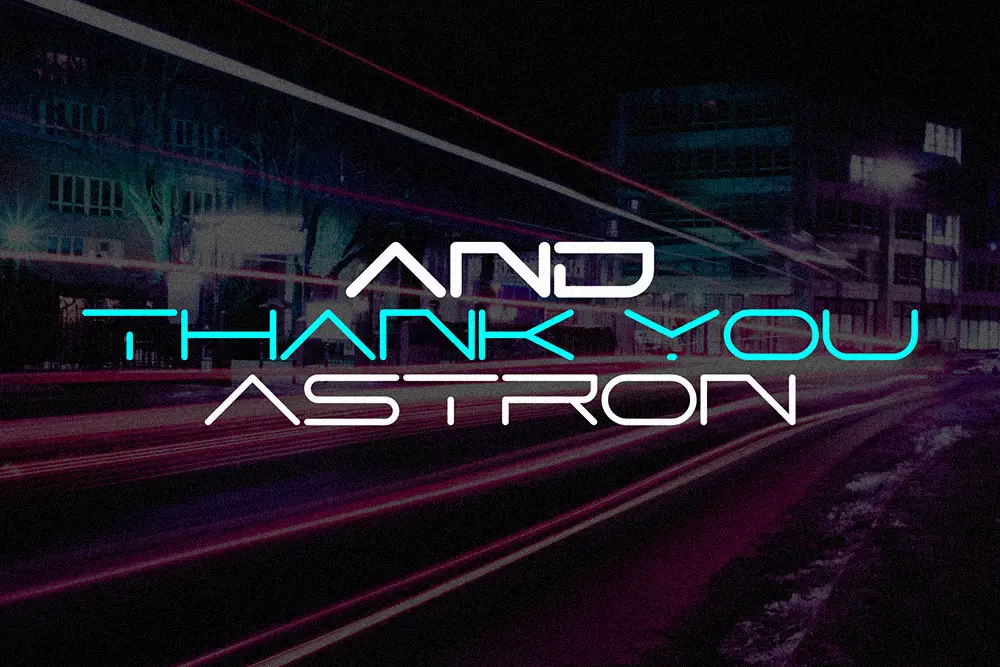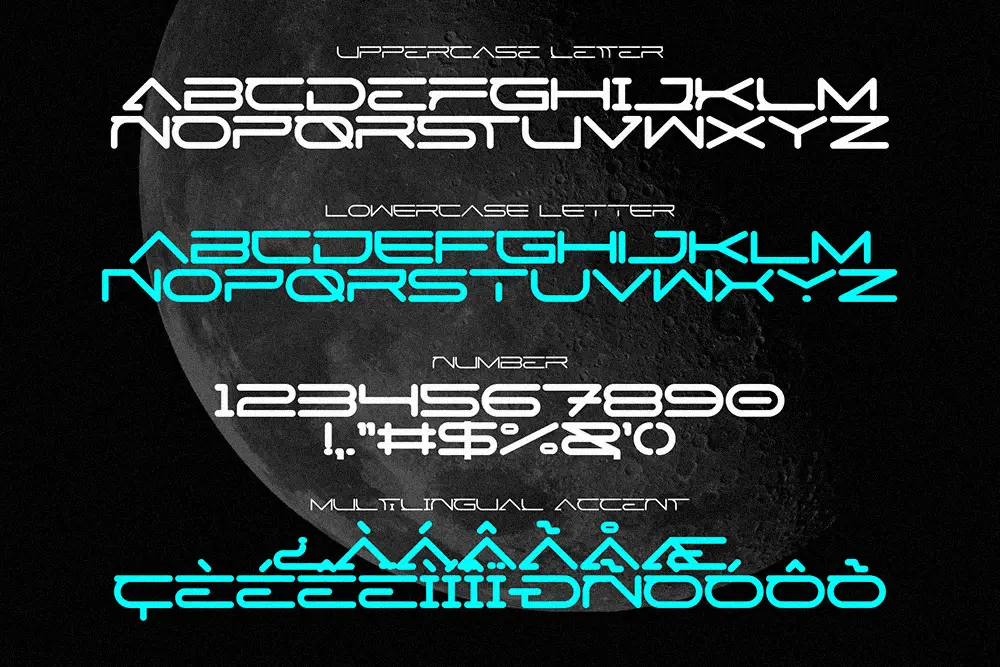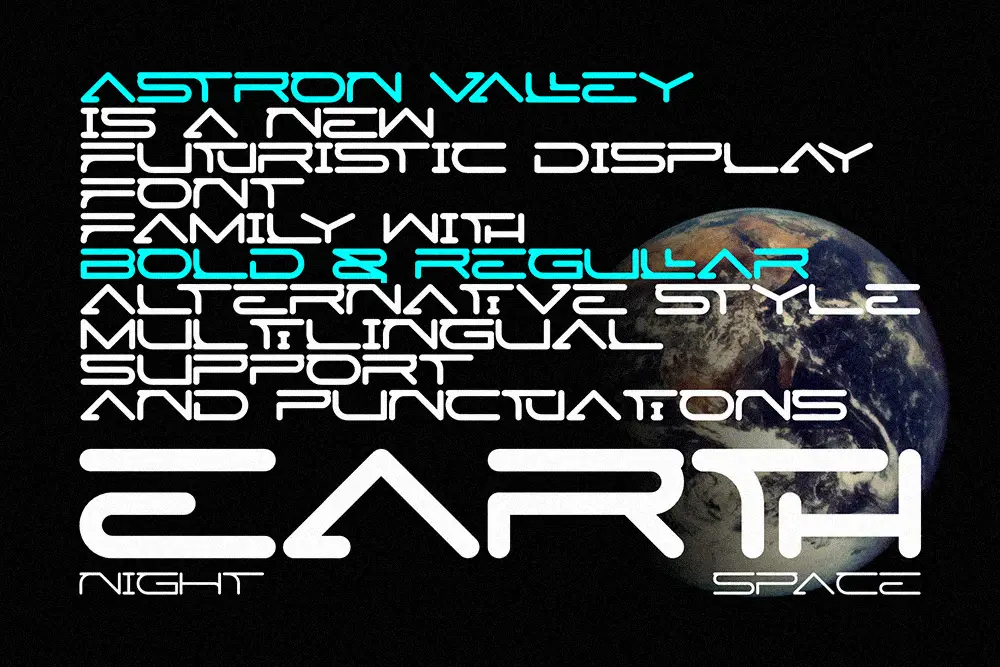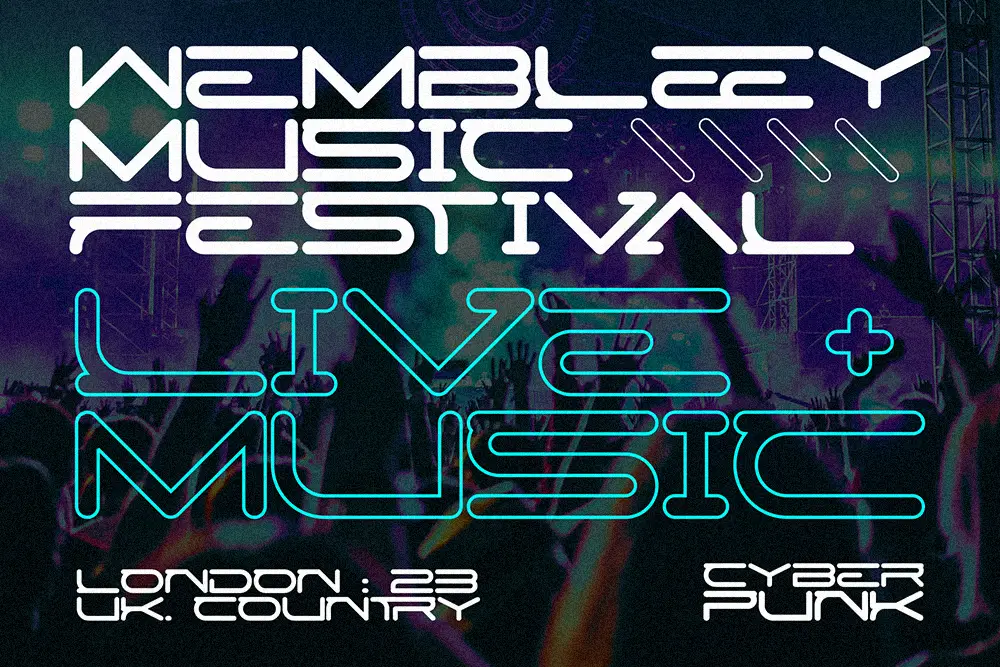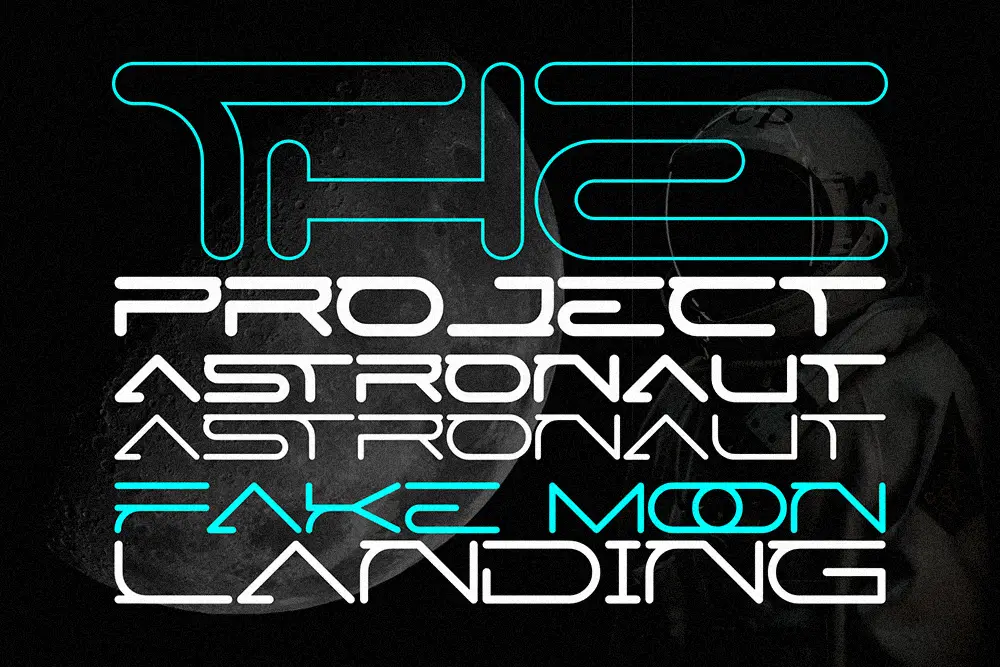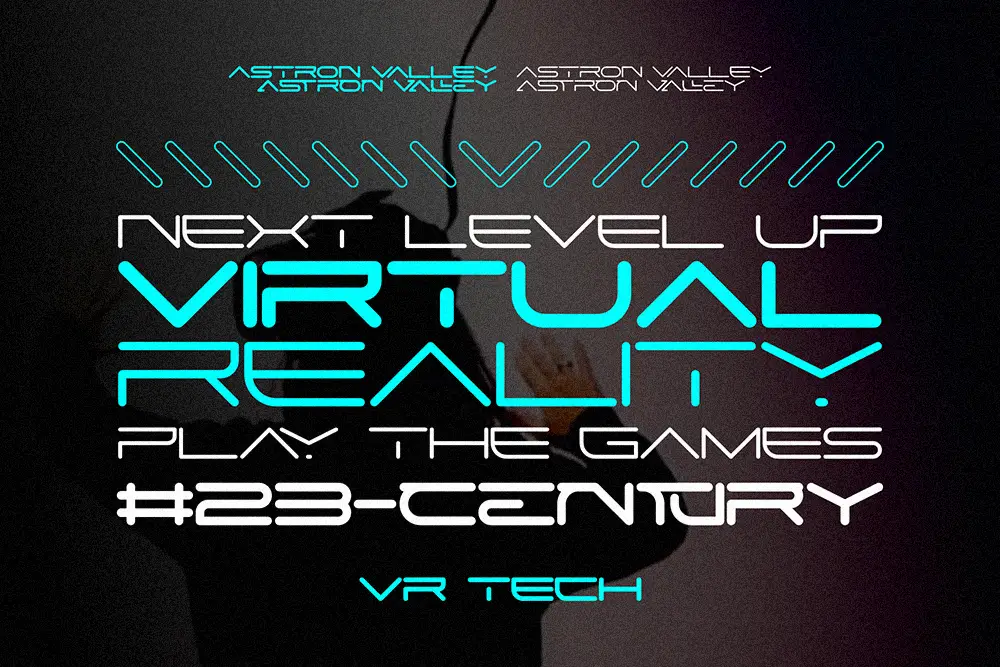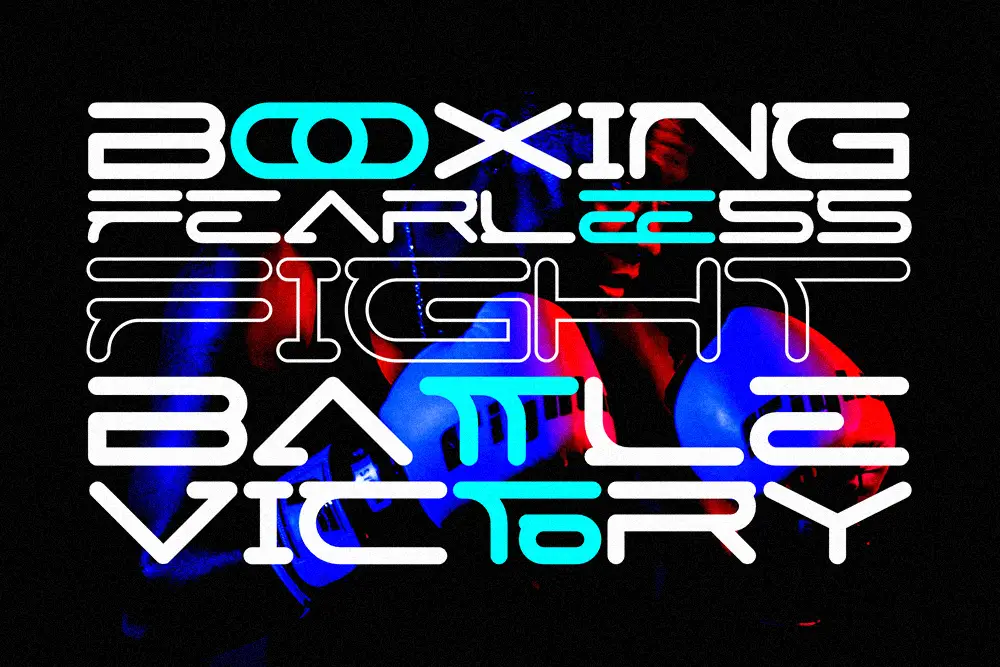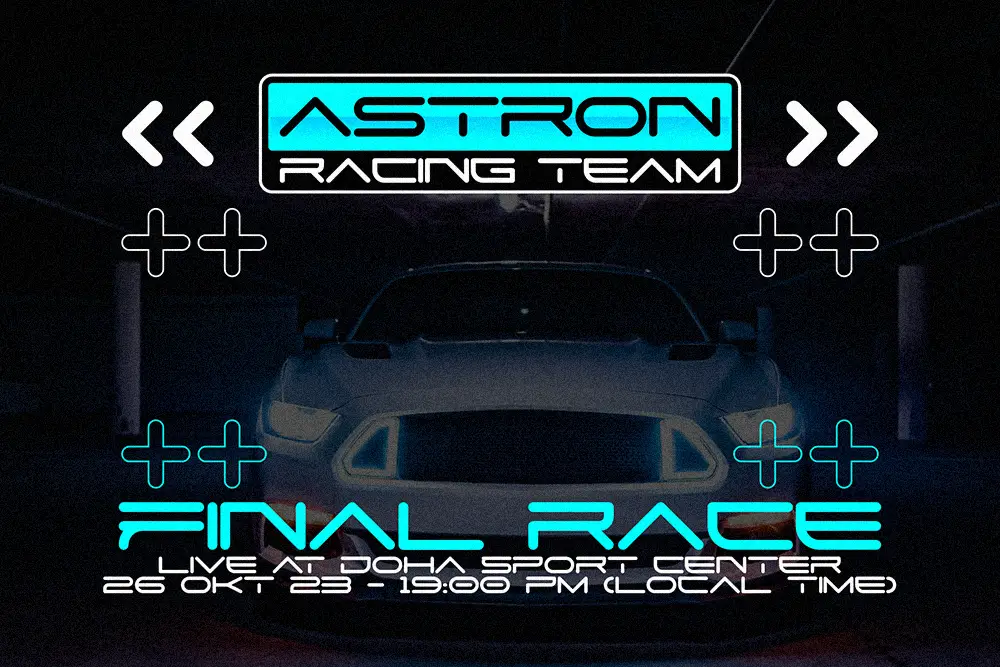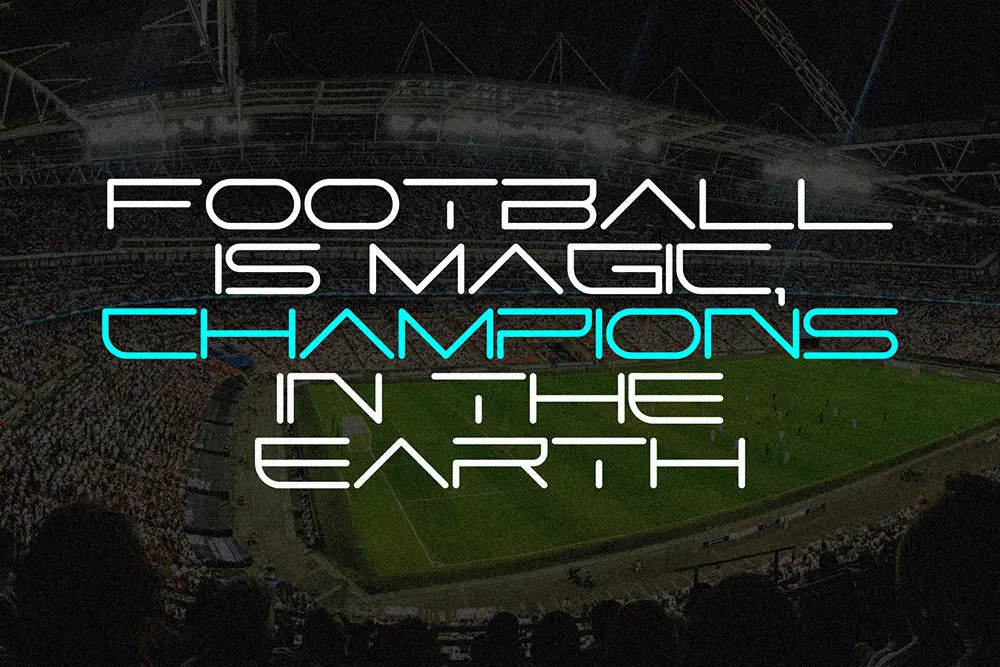
Astron Valley – Futuristic Display Font for Modern Visionaries
Typography defines the future of visual design. Astron Valley – Futuristic Display Font is built for creators who dream beyond the ordinary. With sleek geometric forms, bold strokes, and forward-thinking aesthetics, this futuristic display font is the perfect match for designers who want to make their work look cutting-edge, modern, and dynamic.
From tech startups to digital branding, Astron Valley gives every word an innovative edge. Its dual weights—Regular and Bold—allow endless creative flexibility for titles, posters, UI design, and futuristic branding.
Futuristic Display Font for Bold Innovation
Astron Valley stands as a modern symbol of progress. This futuristic display font blends clean lines, balanced proportions, and high-tech inspiration, making it ideal for logos, product packaging, and digital visuals that communicate sophistication and innovation.
Each letter is designed with precision, giving your text a forward-moving rhythm—perfect for brands that aim to project strength, technology, and modernity.
Key Features of Astron Valley – Futuristic Display Font
Designers need fonts that don’t just look good but perform beautifully in real projects. Here’s what makes Astron Valley – Futuristic Display Font a must-have:
• Uppercase & Lowercase Letters: for complete creative control
• Numbers & Punctuations: suitable for professional use
• Multilingual Support: covers extended Latin characters for global projects
• Geometric Structure: futuristic precision for clean, bold layouts
• Bold Version Included: to emphasize strength and contrast
Whether used for digital products, gaming titles, or cinematic branding, Astron Valley always delivers a premium look.
Why Designers Love Astron Valley
Creative professionals love Astron Valley for its fusion of function and style. This futuristic display font provides the clarity needed for corporate projects while maintaining the creativity that tech and gaming brands crave.
Here’s why designers can’t get enough of it:
• Versatility: Works for futuristic themes, sci-fi designs, and branding.
• Readable yet Distinctive: Modern curves that balance creativity and clarity.
• Dual Weight System: Regular and Bold styles for visual hierarchy.
• Font Pairing Flexibility: Looks stunning with brush or expanded fonts.
Astron Valley in Branding and Logos
In brand design, a futuristic display font can define how customers perceive innovation. Astron Valley gives tech companies, creative agencies, and startups the modern appeal they need.
Its extended letter spacing and precise geometry make it ideal for tech logos, automotive brands, and digital service identities. When you want your logo to feel future-ready, Astron Valley is the key.
Astron Valley for Posters and Titles
Big titles demand bold design—and this futuristic display font delivers impact instantly. Astron Valley’s geometric build makes it perfect for movie posters, product ads, and event promotions that want to feel ahead of their time.
Its bold version works particularly well in 3D or metallic design settings, adding a futuristic punch to your visuals.
Astron Valley for Digital Design and UI
When creating futuristic interfaces or sci-fi themed websites, typography becomes a storytelling element. Astron Valley enhances those experiences through minimal yet powerful form.
Use it for app splash screens, startup dashboards, or product landing pages where clarity and innovation matter most. This futuristic display font ensures your designs look polished, professional, and visionary.
• Character Set: Uppercase, Lowercase, Numbers, Punctuations
• Multilingual Support: Yes
• Category: Futuristic Display Font
• Best Uses: Logos, Posters, Branding, Esports, UI Design, Packaging, Sci-Fi Titles
Font Pairing Ideas
Astron Valley pairs beautifully with these typefaces for balance and contrast:
Why Astron Valley is the Future of Typography
Astron Valley – Futuristic Display Font is a bold step toward the next era of design. With its modern structure, clean lines, and two dynamic weights, it offers the perfect balance of creativity and precision.
If you’re ready to create futuristic designs that stand the test of time, Astron Valley is the font that will take your projects beyond the present.